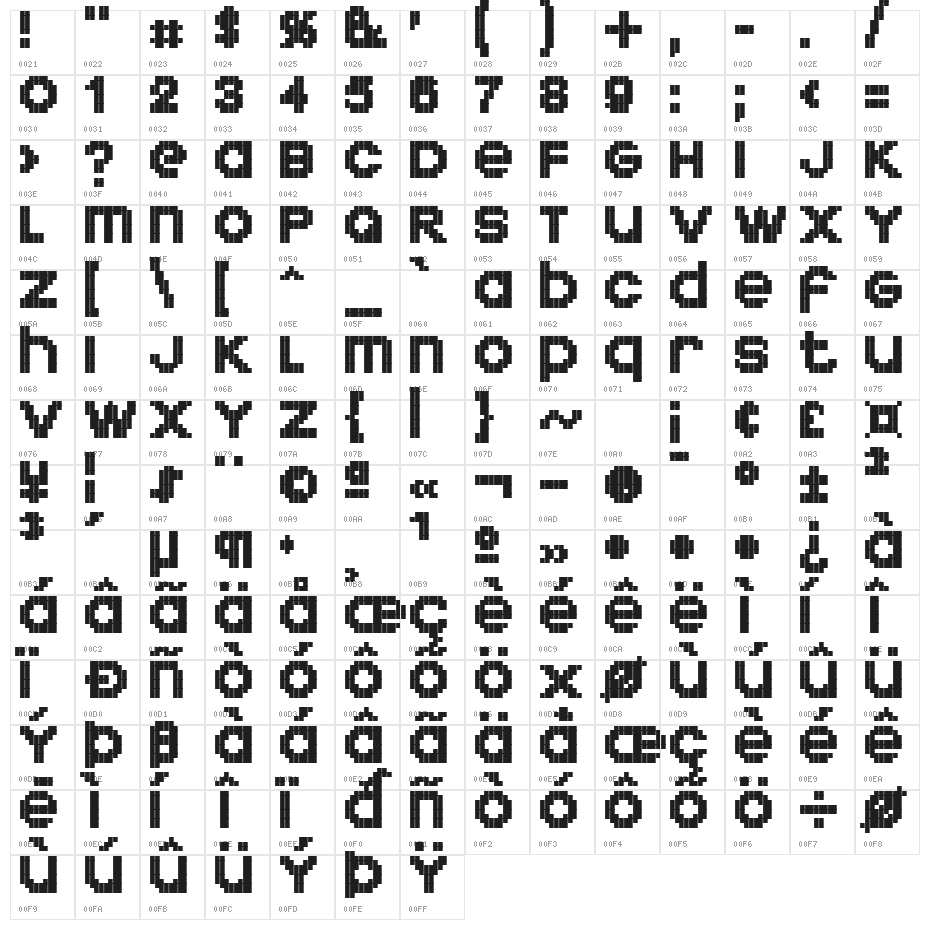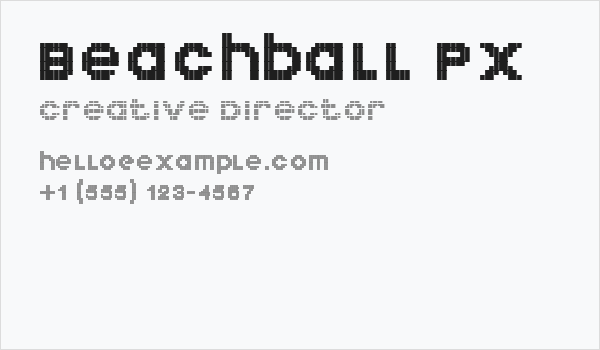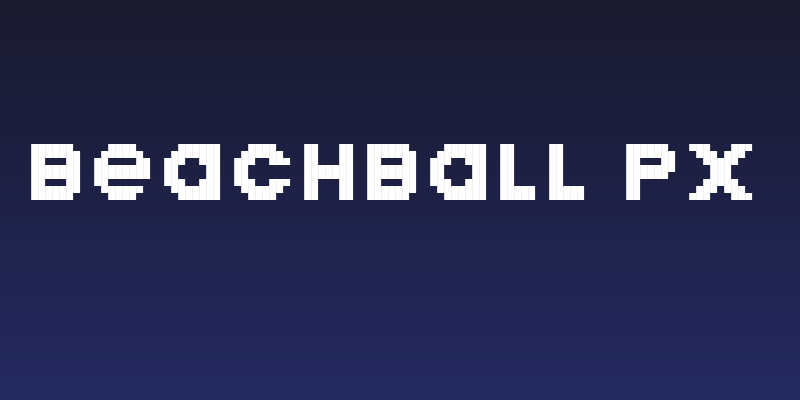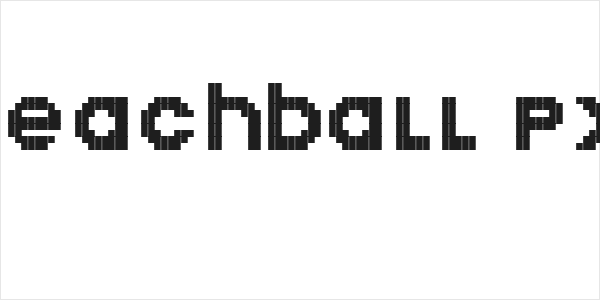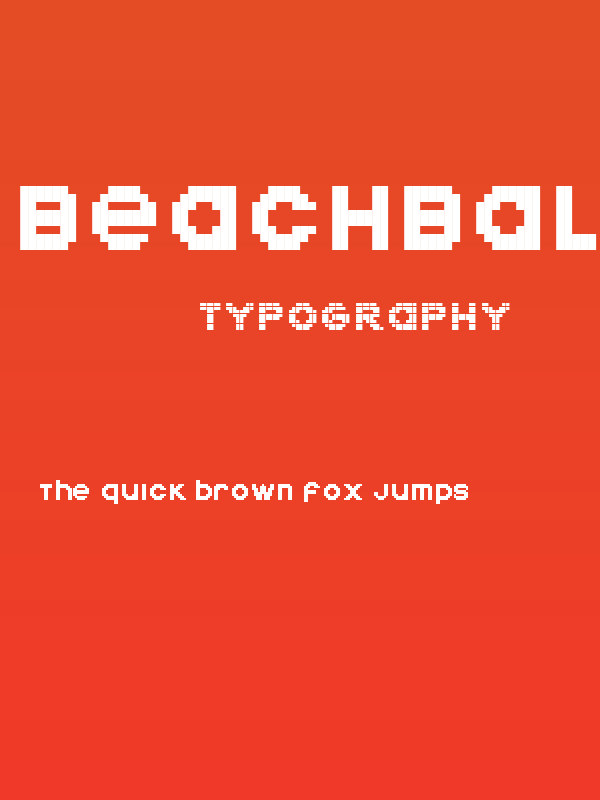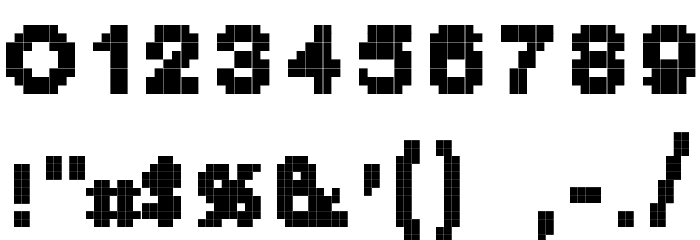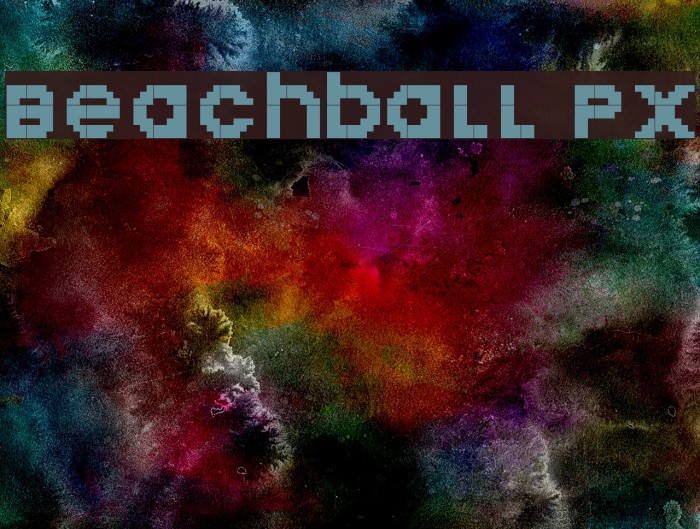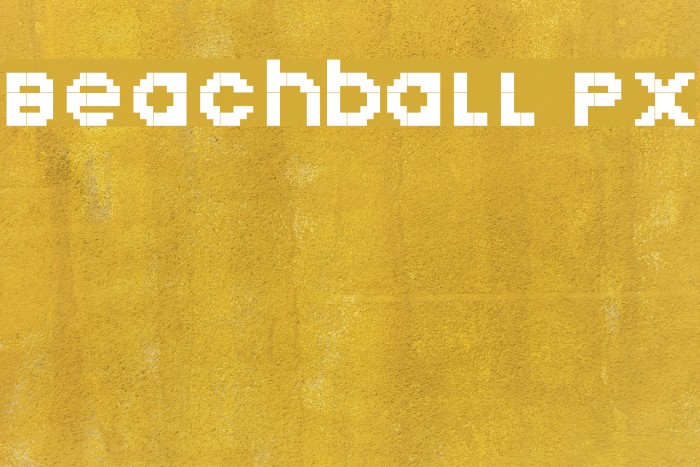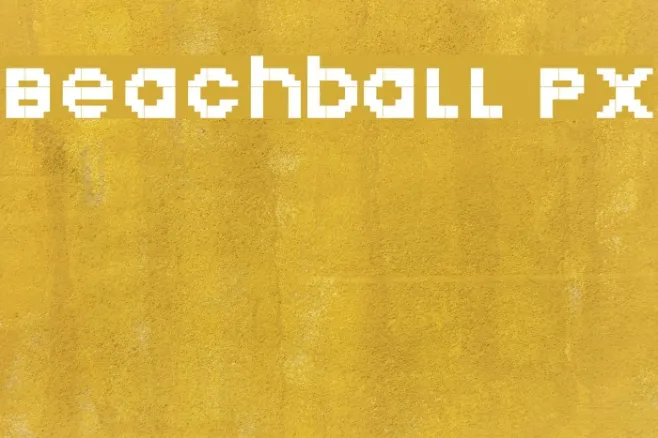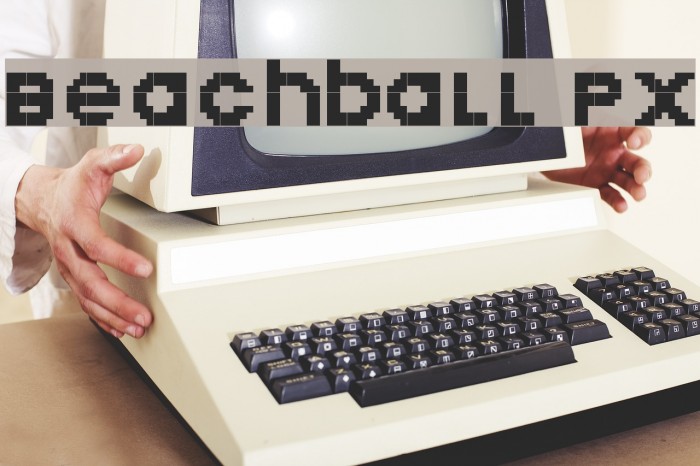
Beachball Px Font
| Stile generale | Retro, Digital |
| Caso d'uso | Headlines, Logos, Digital displays |
| Progetti proposti | Ideal for video game graphics, retro-themed posters, digital art projects, and tech-related branding. |